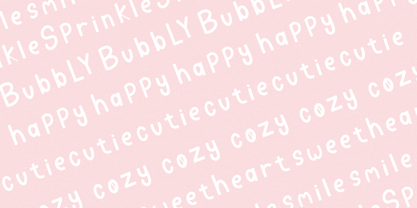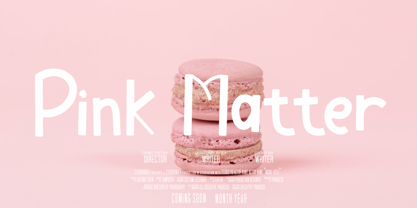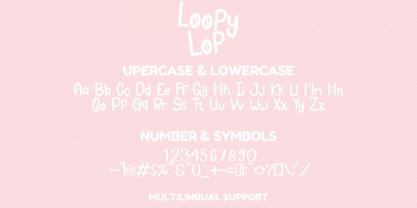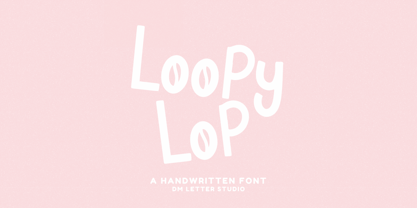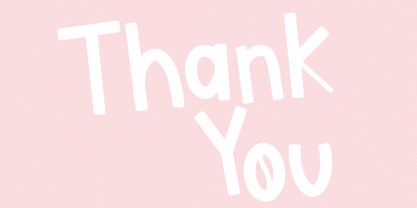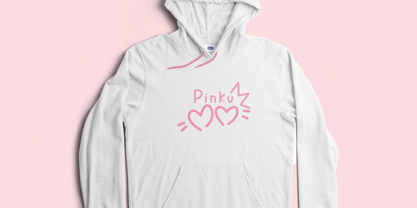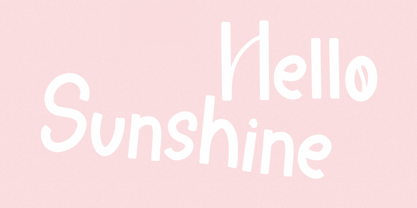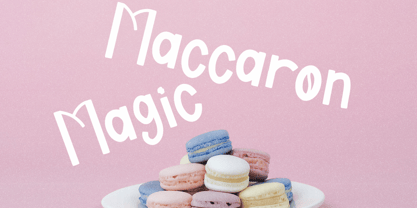
Loopy Lop
by DM Studio
The Loopy Lop Font Family was designed by Dimas Prasetyo and published by DM Studio. Loopy Lop contains 1 styles.
Loopy Lop – Whimsical & Bouncy Handwritten Font Loopy Lop is a fun and quirky handwritten font full of personality and playfulness. Designed with bouncy baselines, exaggerated loops, and a lighthearted rhythm, this typeface brings charm and spontaneity to every letter. If you’re looking for a handwritten style that doesn’t take itself too seriously, Loopy Lop is your perfect match. The focus keyphrase whimsical handwritten font shines right from the start. Whether you're creating birthday invitations, children’s apparel, planner stickers, greeting cards, or fun quotes for social media, this font adds a dose of joy and energy to your message. Loopy Lop’s unique, slightly irregular strokes are reminiscent of joyful scribbles—crafted to look spontaneous, but carefully balanced for readability and flair. Loopy Lop works especially well in projects that need a personal, informal feel. It's perfect for designers, crafters, and creative entrepreneurs looking to add a handmade touch to branding or marketing materials. Its charm also appeals to educators, scrapbookers, and lifestyle bloggers wanting a playful tone for titles, headers, or digital products. You’ll get a complete character set that includes uppercase and lowercase letters, numbers, punctuation, and multilingual support. Whether you're building a fun brand identity or crafting designs that need a little extra whimsy, Loopy Lop handwritten font is made to turn simple text into something delightfully expressive. ✨ Features Bouncy, loopy handwritten style Perfect for kids’ designs, quotes, stickers, and greeting cards Full A–Z character set with numbers and punctuation Multilingual support Works seamlessly in Canva, Adobe, Procreate, Cricut, etc. Easy to install on Mac and Windows
Designers: Dimas Prasetyo
Publisher: DM Studio
Foundry: DM Studio
Design Owner: DM Studio
Loopy Lop